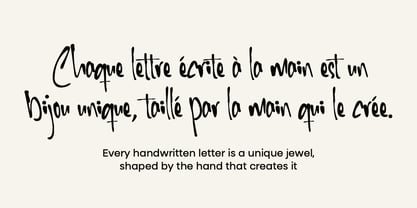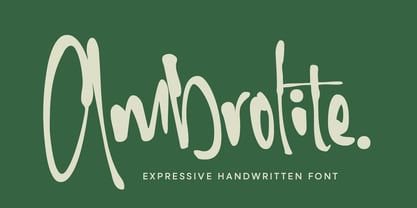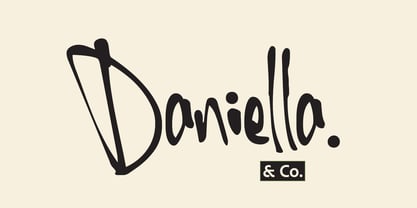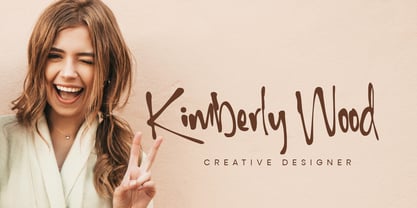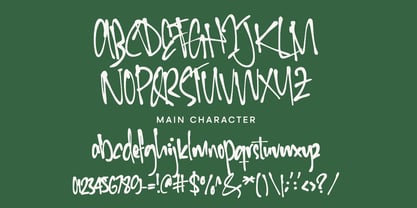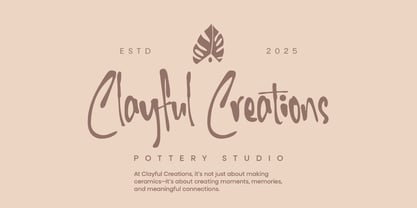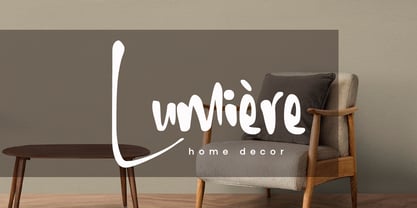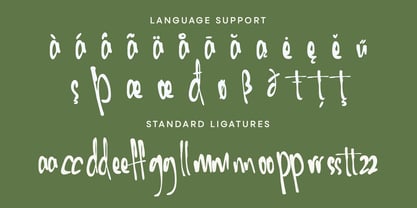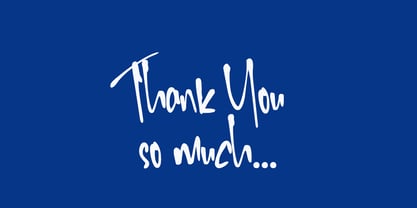
Ambrolite
by MMMA Creative
The Ambrolite Font Family was designed by Siti Saribanon Nurjannah, Muhammad Mevlana Maliq Azizi and published by MMMA Creative. Ambrolite contains 1 styles. More about this family
Ambrolite is born from a free hand, with strokes that are never perfectly measured, yet that is where its beauty lies. Every line carries spontaneity, like sketches on paper filled with energy and honesty.
The letters flow with an organic rhythm, sometimes wild, sometimes calm, yet always leaving a deeply personal trace. Ambrolite is a celebration of beautiful imperfections, a visual language that brings the human touch into design.
This typeface is not only made to write words, but to evoke feelings. It belongs to works that speak of warmth, courage, and authentic expression.
Designers: Siti Saribanon Nurjannah, Muhammad Mevlana Maliq Azizi
Foundry: MMMA Creative
MMMA Creative is an independent type foundry based in Aceh, Indonesia, founded by Muhammad Mevlana Maliq Azizi. With a love for expressive letterforms, MMMA Creative focuses on creating display, graffiti, and handwriting fonts that carry a personal and creative touch.Inspired by urban culture and the freedom of visual expression, each typeface is crafted with care—whether it's bold graffiti styles or natural handwriting. MMMA Creative is a place where letters are shaped by passion, built with a DIY spirit, and made to connect through character.